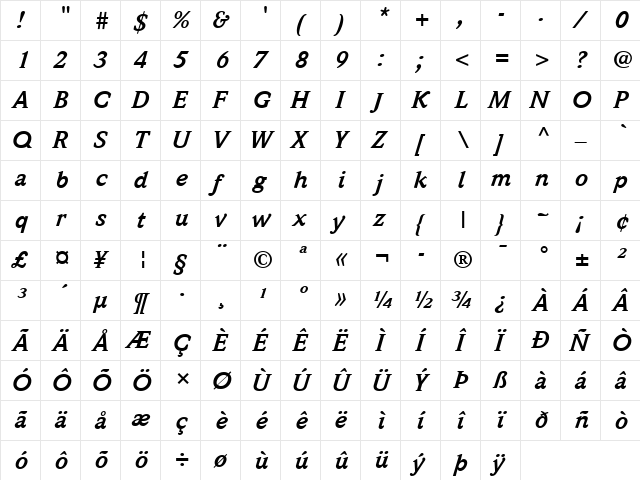
Weidemann LT Book Bold Italic
Design Context for Weidemann LT Book Typeface
Weidemann LT Book offers clean, dependable letterforms without strong stylistic allegiance, making it a practical choice for designers who need flexibility. The slanted form adds forward momentum and visual energy. Its bold stroke weight gives it real presence on the page.
Pro Tip: Try Weidemann LT Book for annotation and caption copy alongside an upright companion — the contrast in angle creates a dynamic but ordered typographic system.